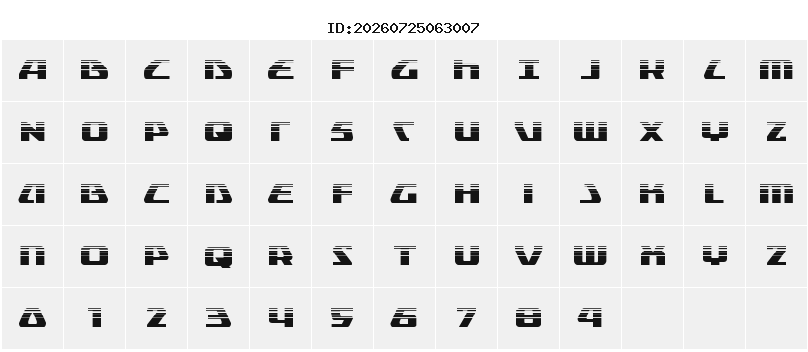
• Font Name: Global Dynamics Halftone
• Full Font Name: Global Dynamics Halftone
Global Dynamics Halftone.ttf is a modern, elegant sans-serif font designed for ultimate readability and visual harmony. Perfect for branding, headlines, web design, and print materials.